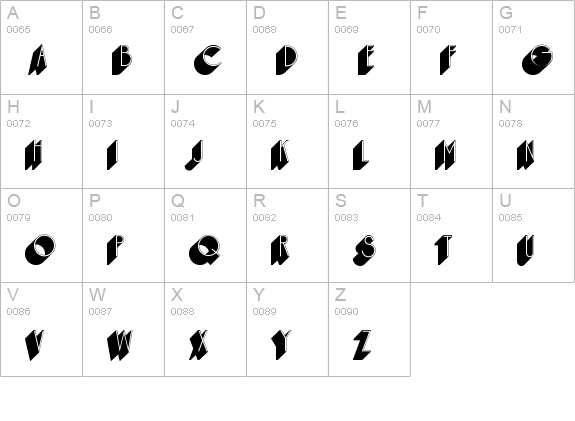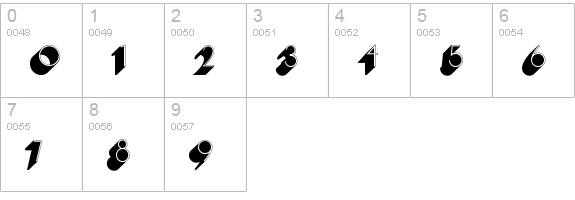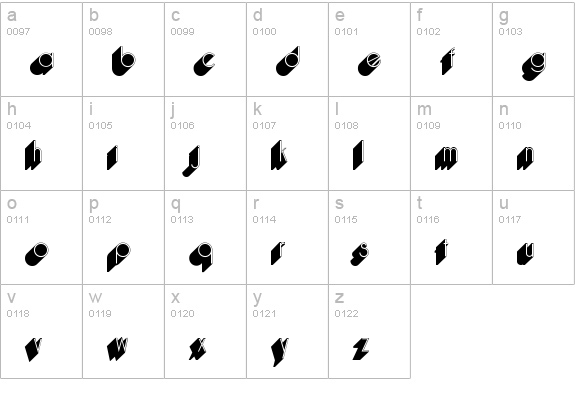
HerculoidShaded Font Details
HerculoidShaded font is a bold and dynamic typeface that exudes strength and power. With its unique shading effect, this font commands attention and adds a touch of drama to any design project. The HerculoidShaded font is a versatile choice for headlines, posters, and branding materials, making a bold statement with its strong presence. Best of all, this impressive font is available for free download at FontsMarket.com. Whether you're looking to make a bold statement or add a touch of drama to your designs, HerculoidShaded font is a fantastic choice that won't cost you a penny. Download it today and elevate your design projects with this powerful and eye-catching typeface.